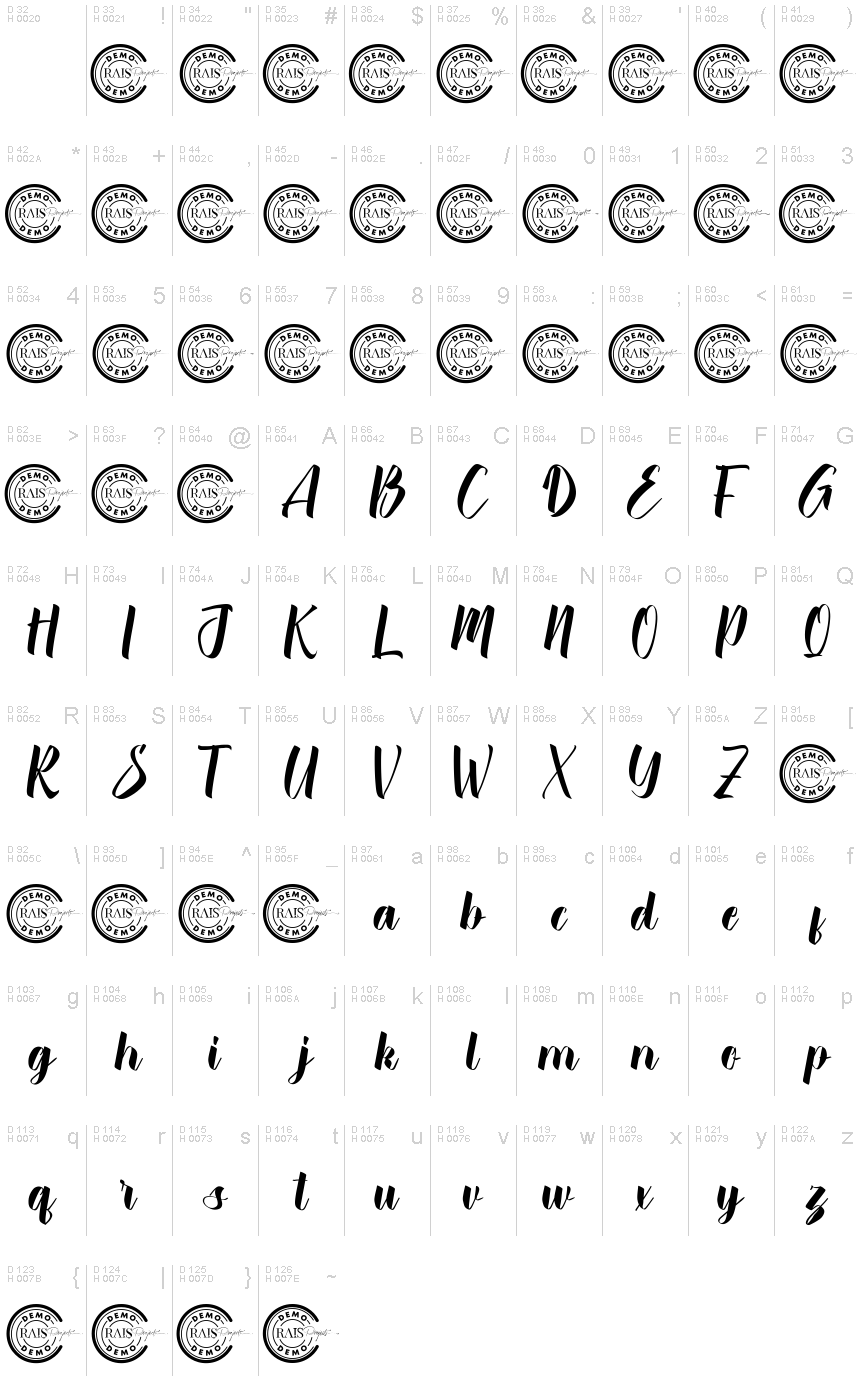
Green Marshal Demo
Green Marshal font by RaisProject is a modern handwritten typeface that’s both expressive and dynamic. A great mix of flowing, lively, and energetic shapes gives the typeface an eye-catching look suitable for plenty of situations. Each character draws a lively style intended to engage any audience while giving a sense of excitement, uniqueness, and creativity.
This free handwritten font shines in stationery designs like postcards and posters even in printed or digital media. Use this striking resource in logos, advertisements, magazines, typography exercises as well as newspaper projects. Enjoy professional uses which also include packaging design or any other branding materials!